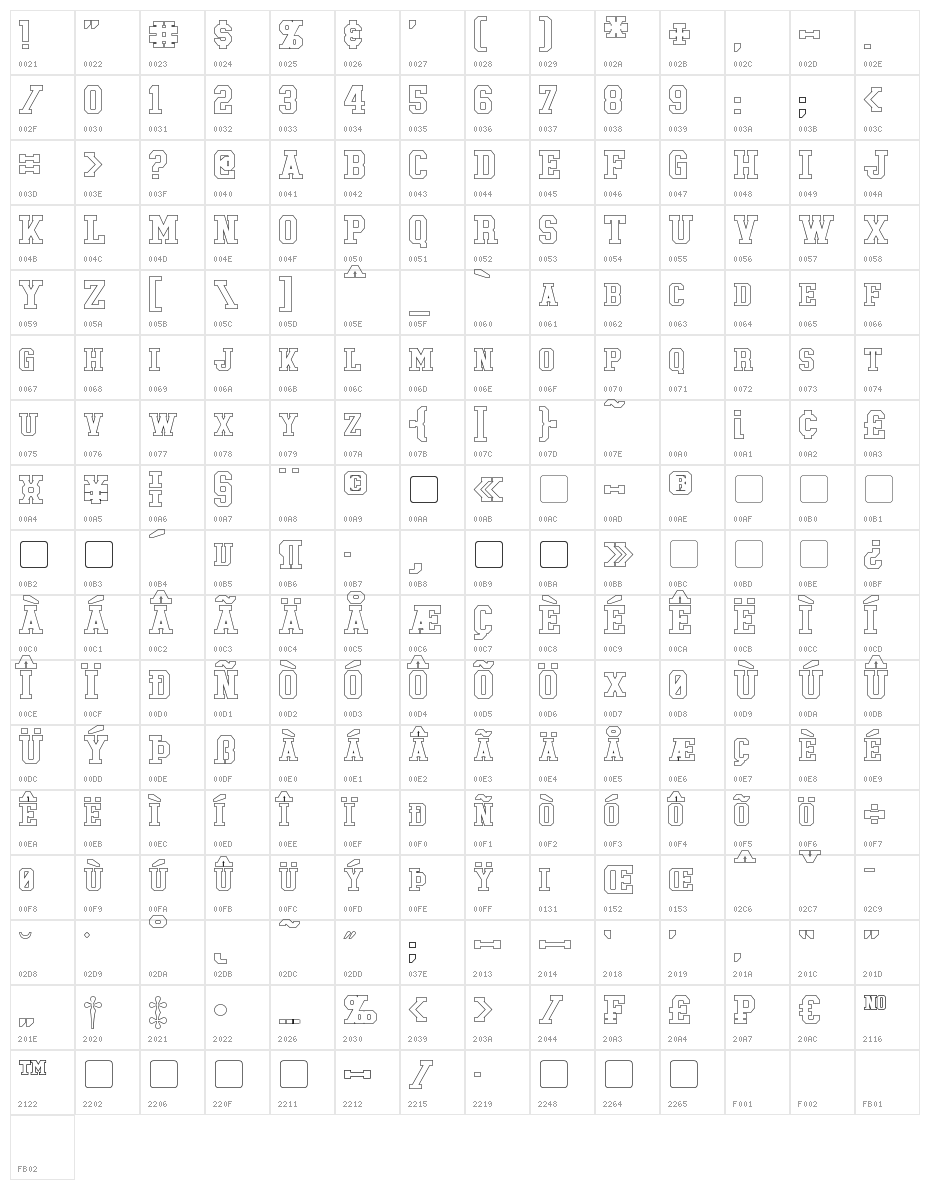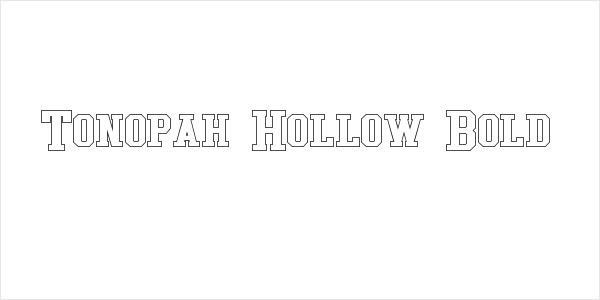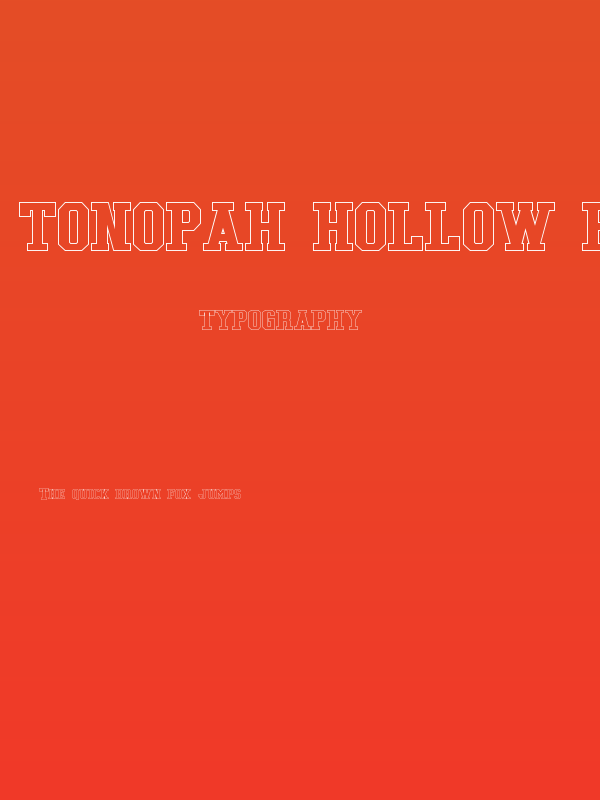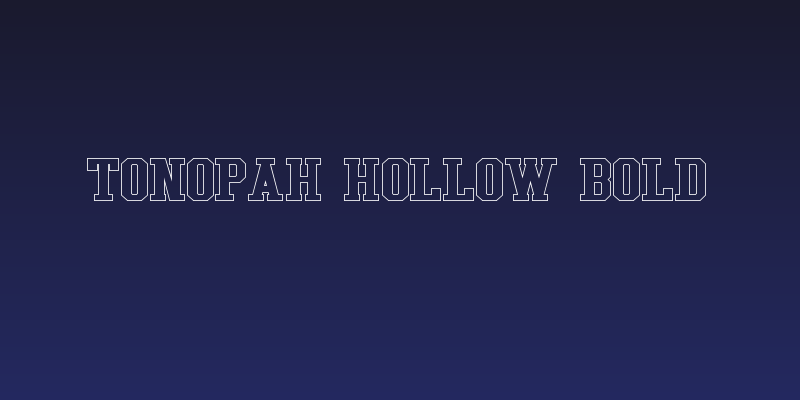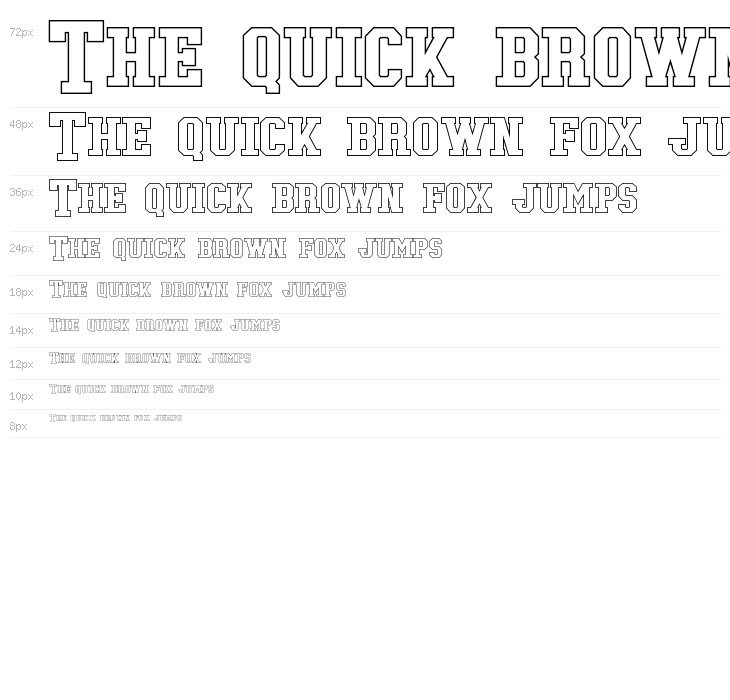
Tonopah Hollow Bold Font
Tonopah Hollow Bold Description
This font features a bold, hollow design with a strong, geometric structure. The uppercase letters are characterized by their blocky, angular shapes, giving them a commanding presence. The font maintains consistent line thickness throughout, contributing to its uniform appearance. The numbers and special characters follow the same design principles, ensuring a cohesive look across all elements. This style is reminiscent of collegiate or sports-themed typography, often used to convey strength and reliability. Its hollow nature allows for creative layering or color fills, making it versatile for various design applications.
| Proposed Projects | Ideal for sports team branding, posters, headlines, and any design requiring a bold, impactful statement. |